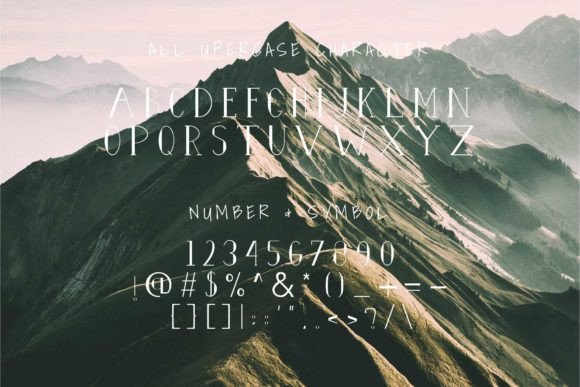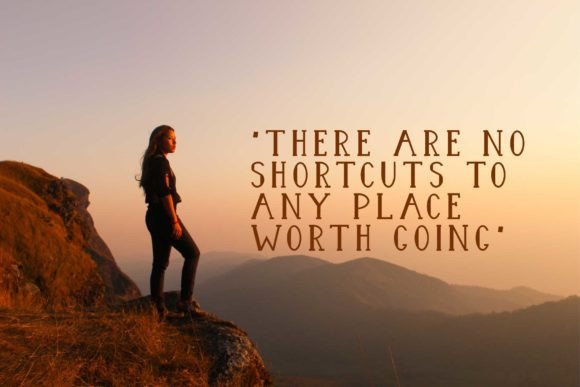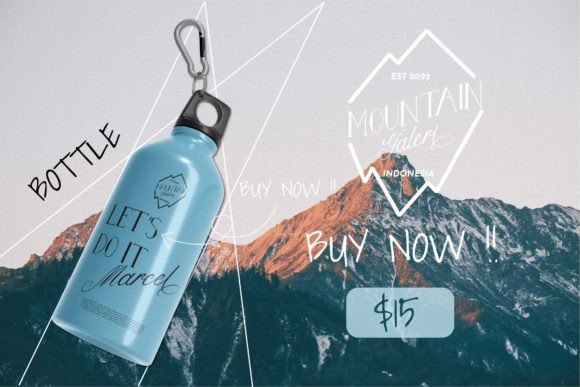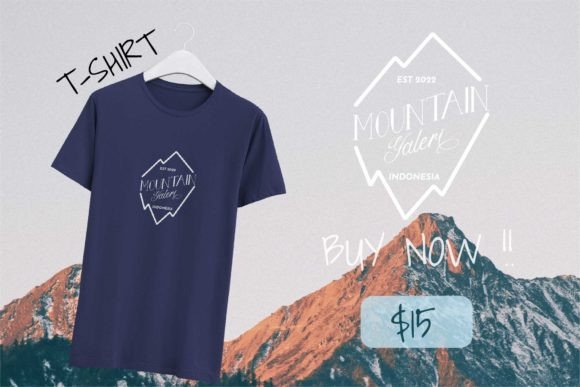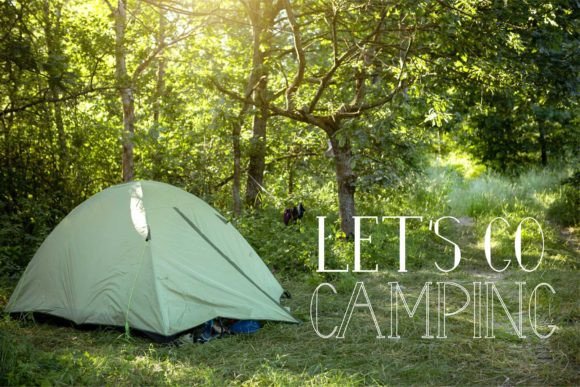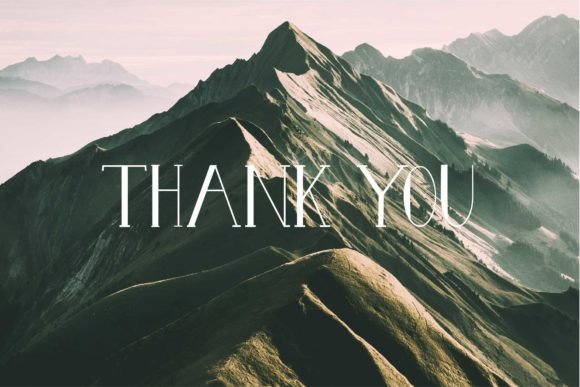
Introduction to Great Mountain Font
Great Mountain is a clean and fresh display font.
Its casual charm makes it appear wonderfully down-to-earth, readable, and, ultimately, incredibly versatile This will look outstanding in any context, whether itโs being used on busy backgrounds or as a standalone headline.
Key Features of Great Mountain Font
Why Choose Great Mountain Font?